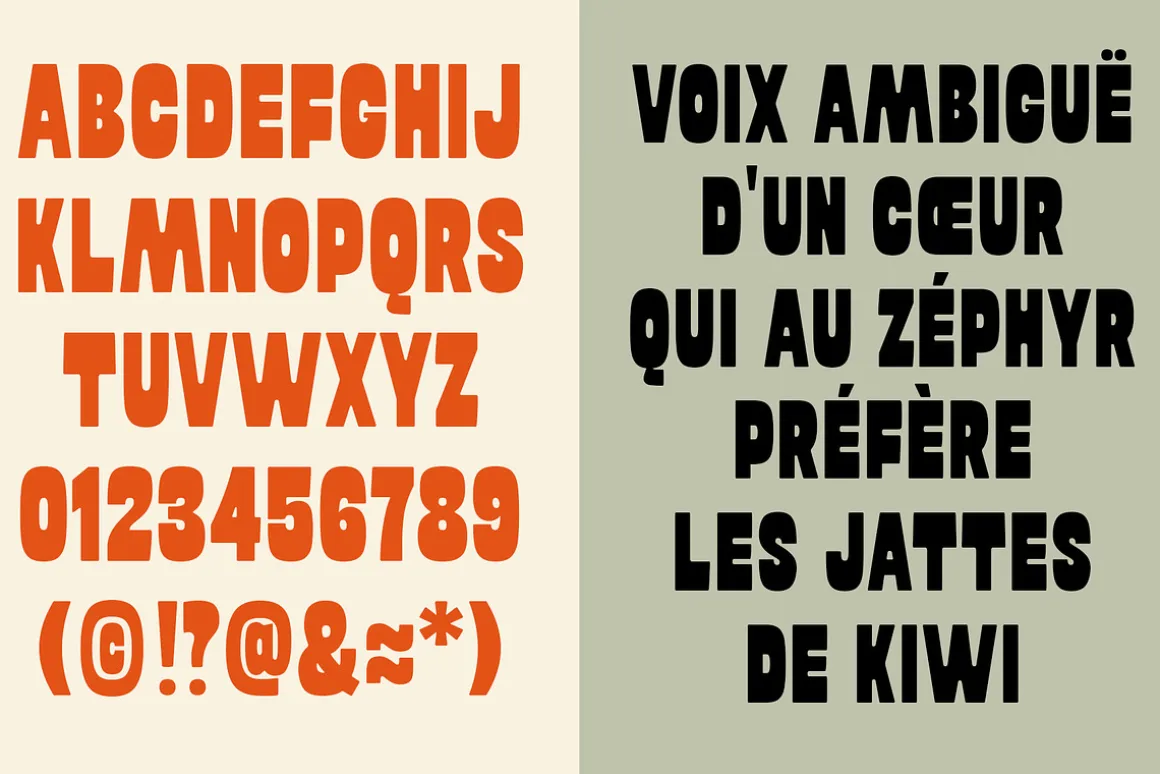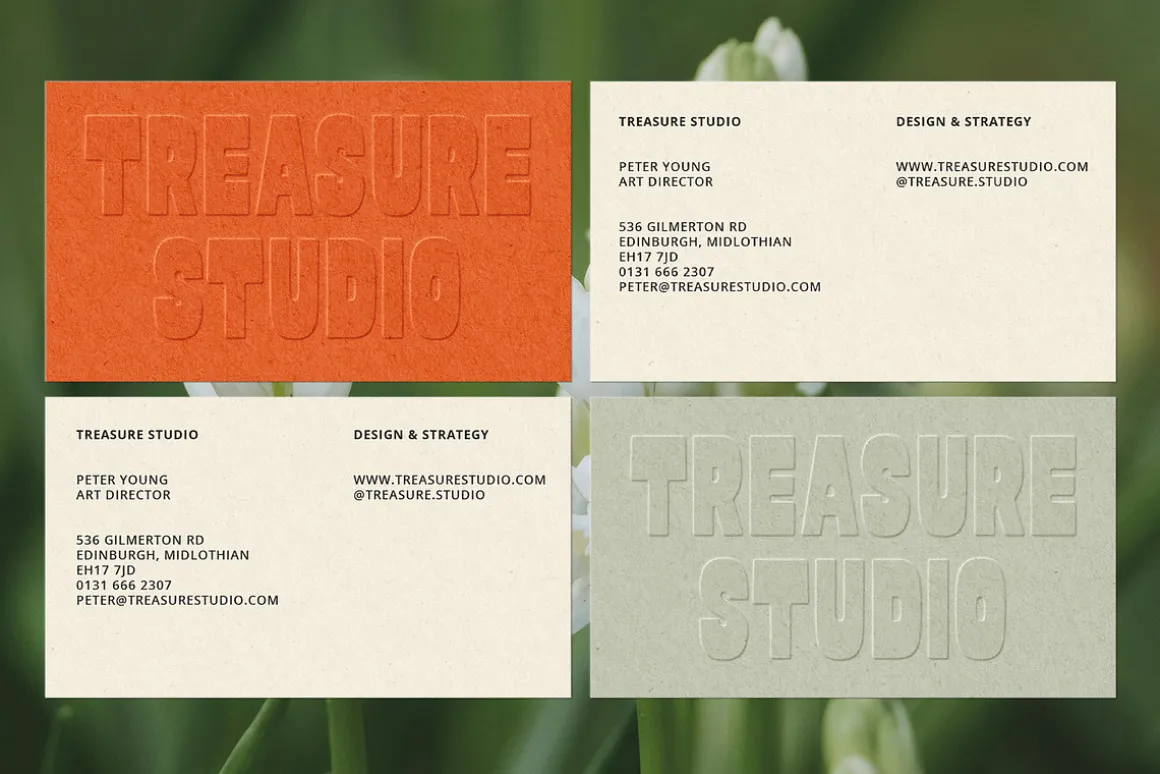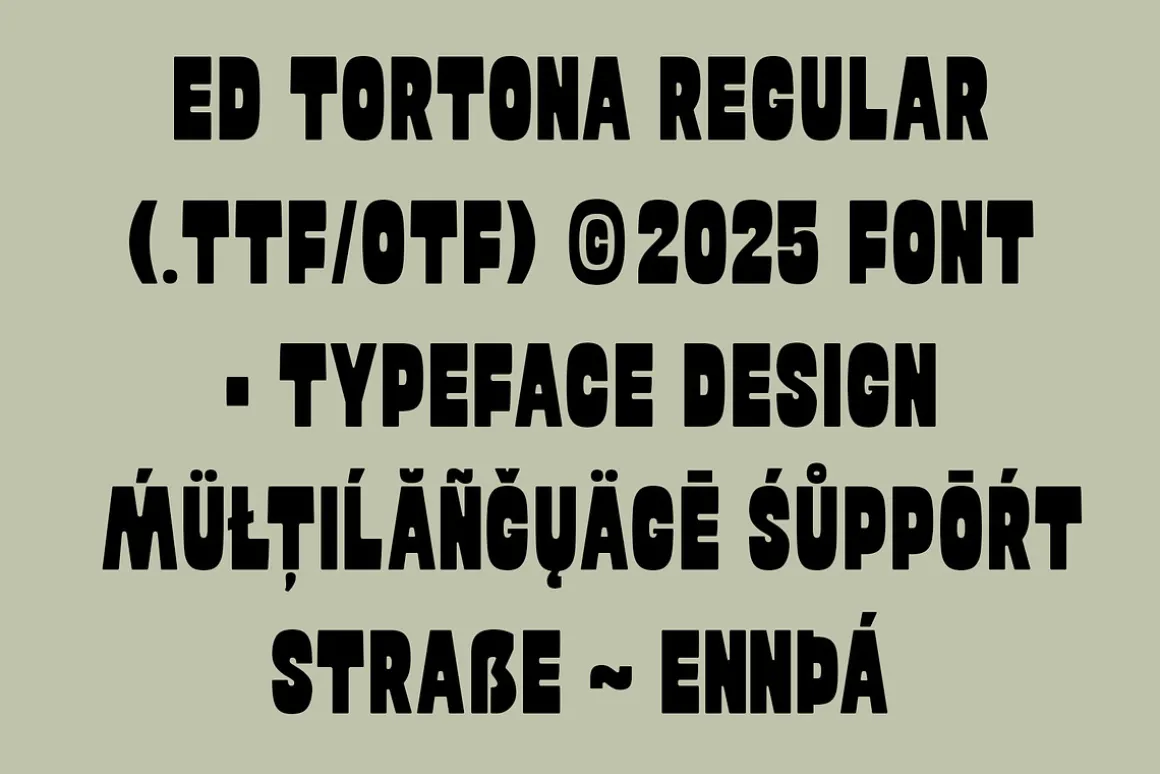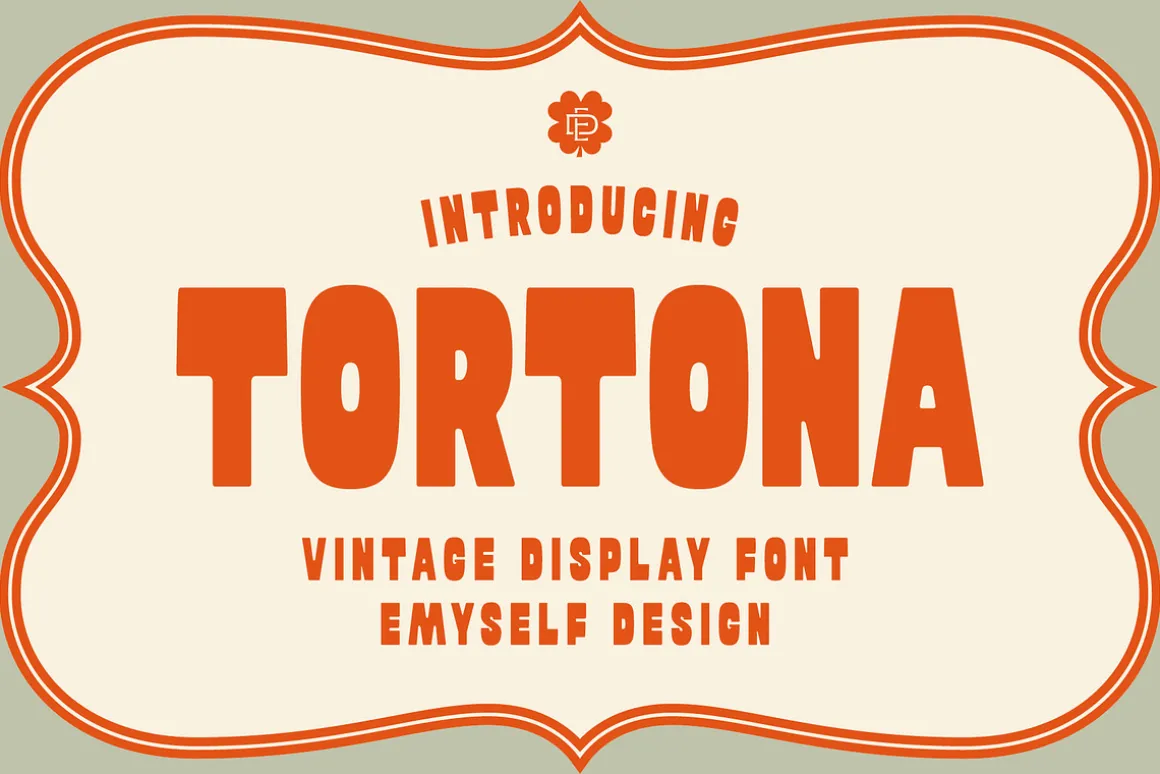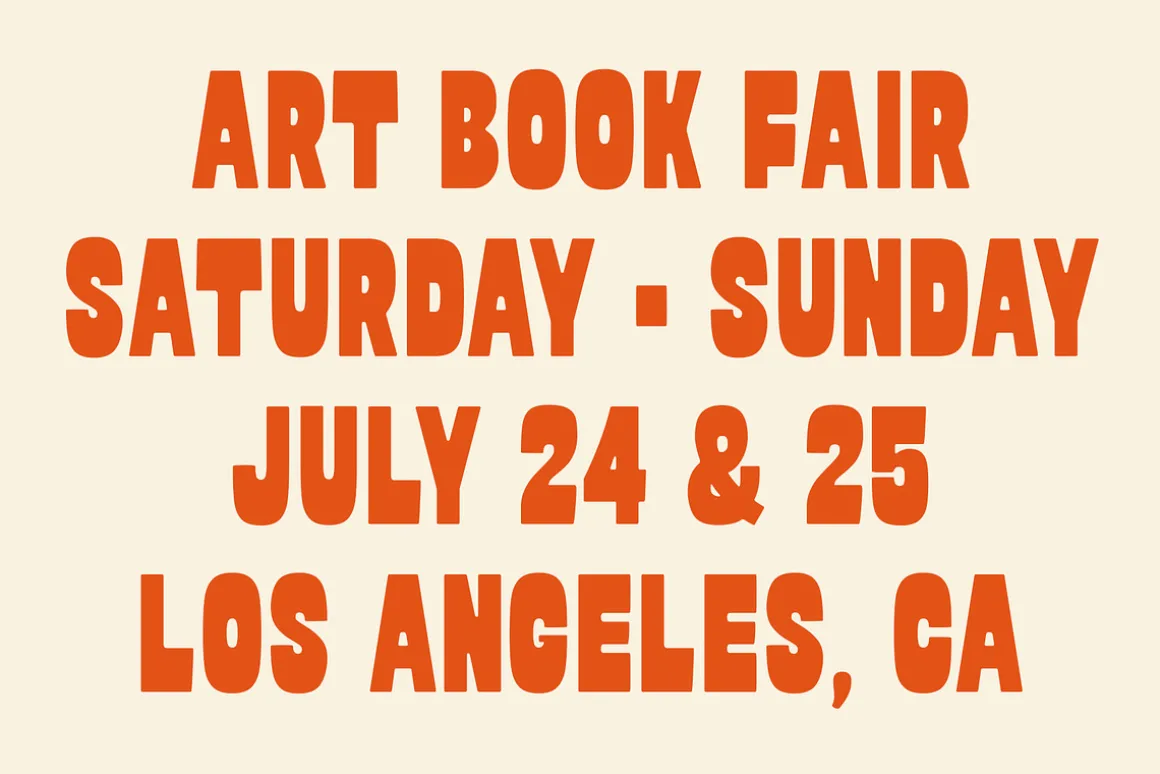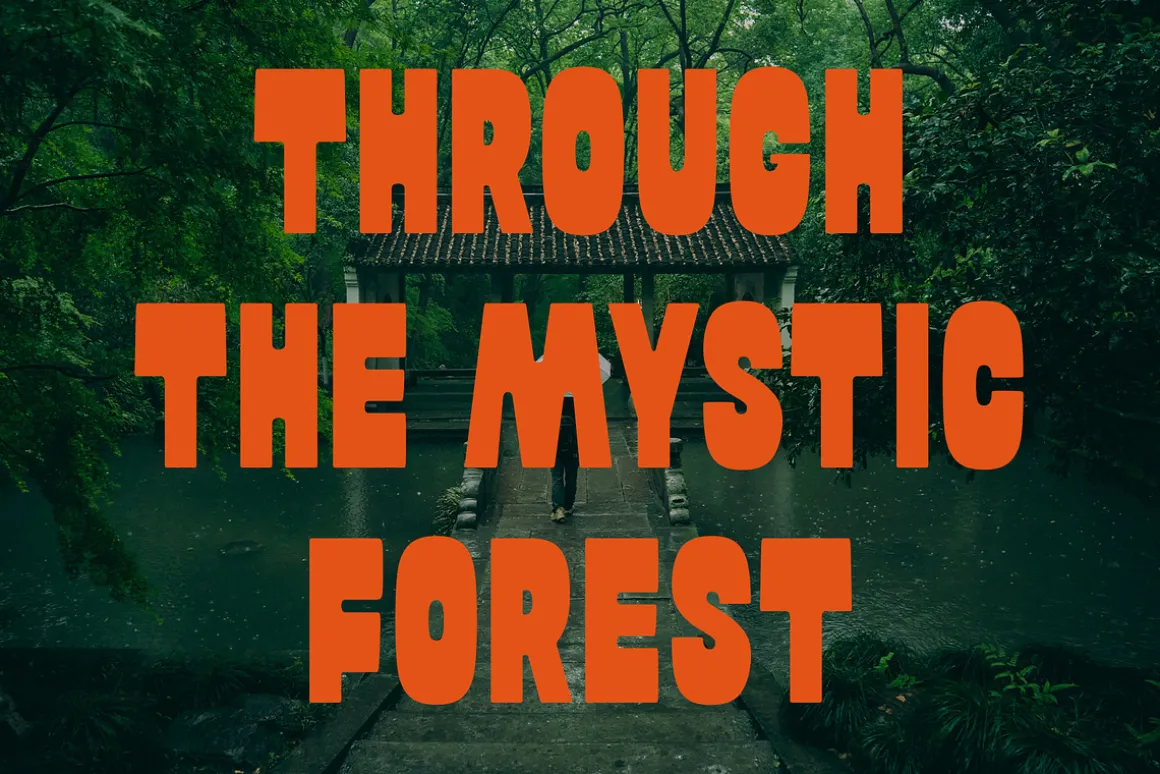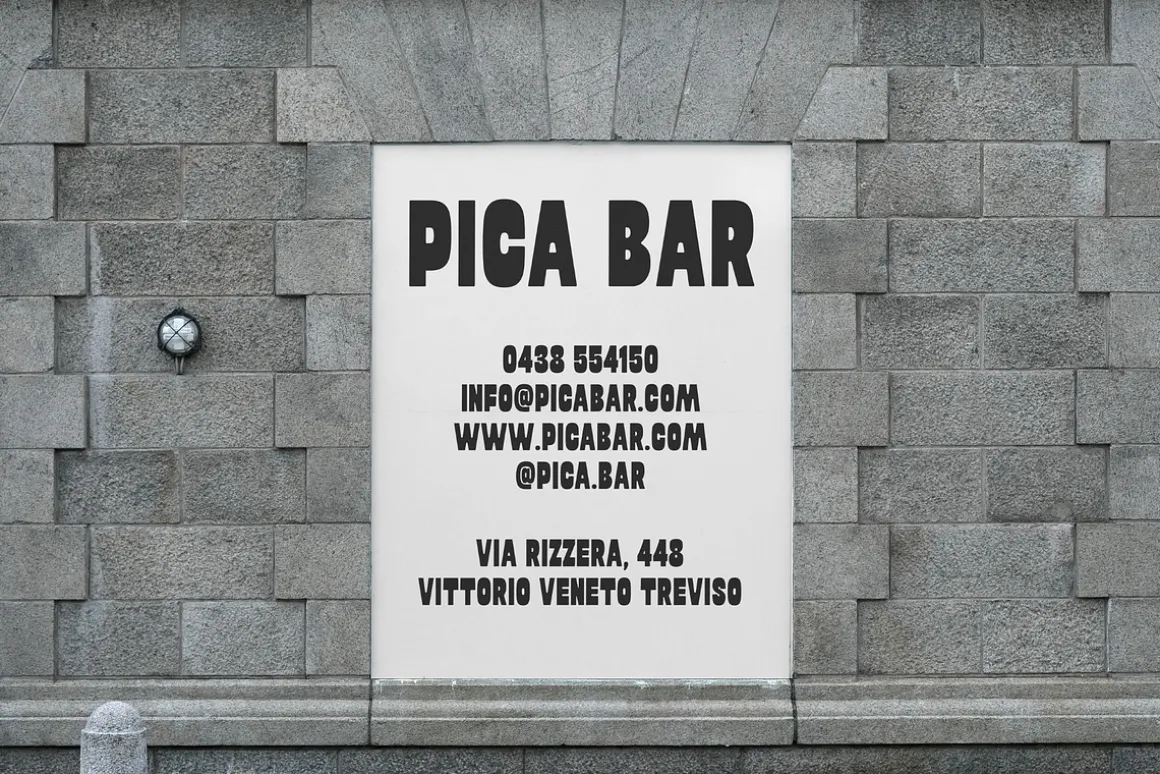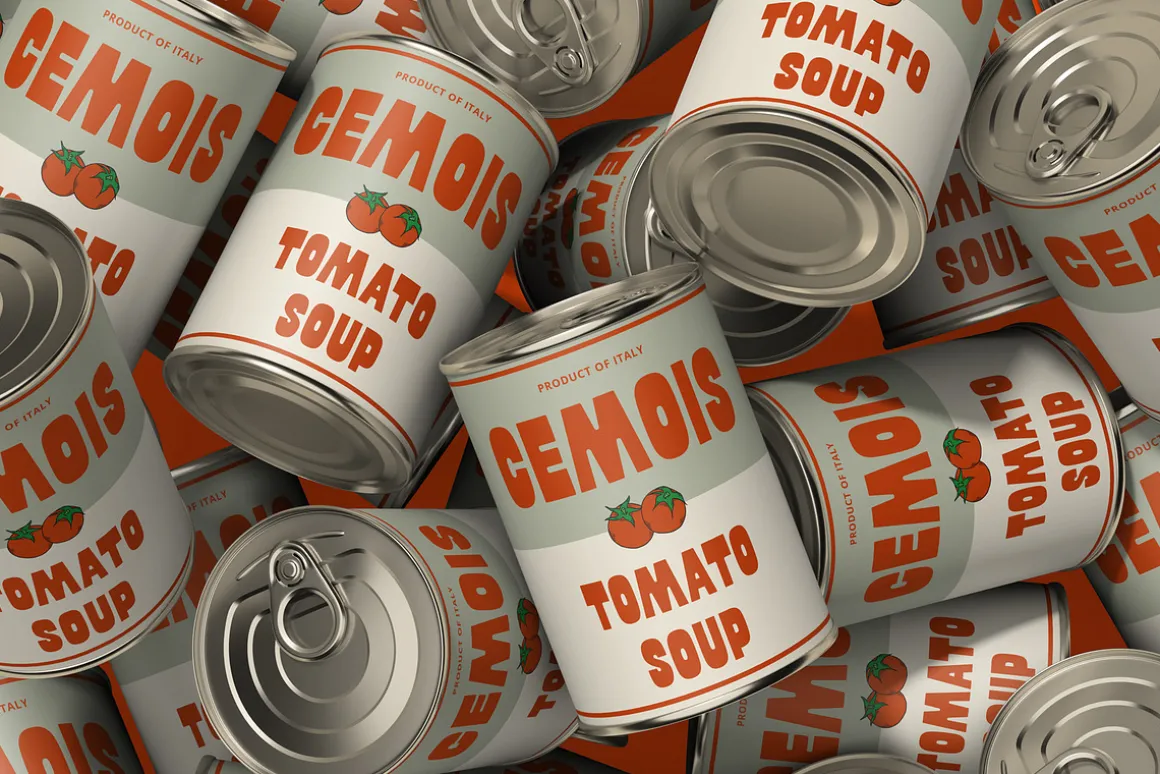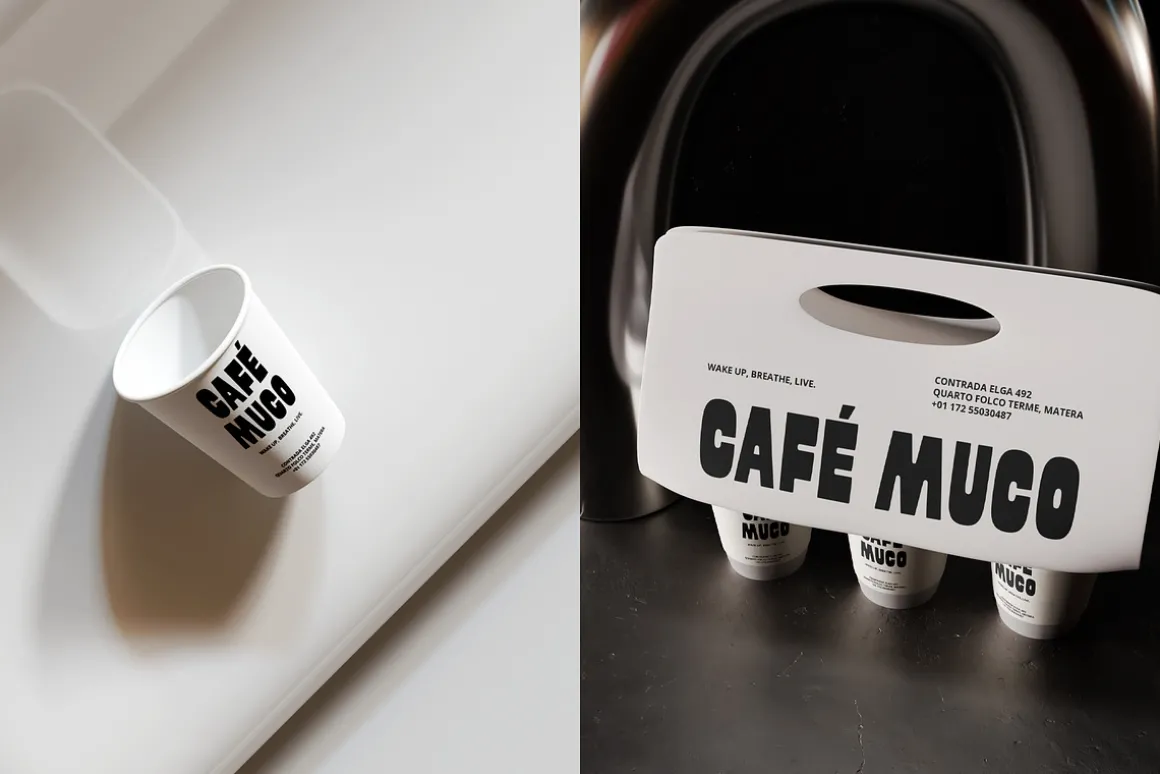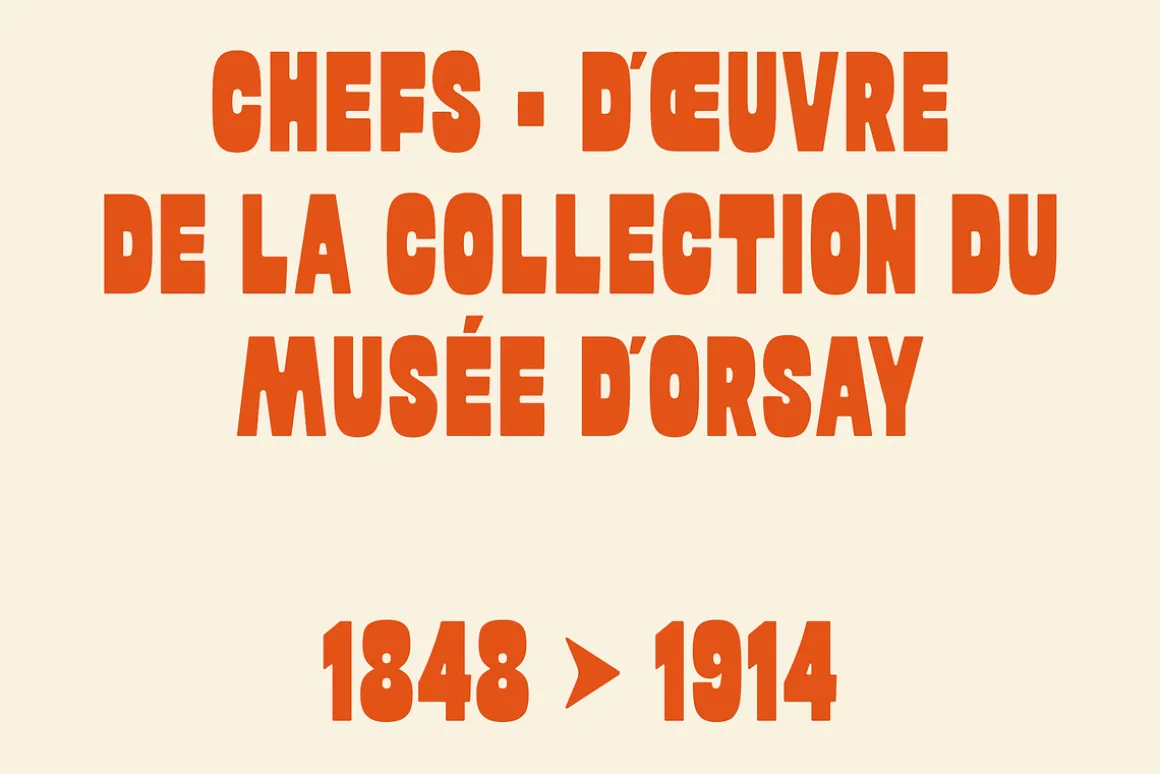
Tortona is a vintage-style display font that combines classic characters with a modern touch. With thick lines and soft edges, Tortona exudes a strong yet elegant impression. Suitable for titles, posters, packaging, and design projects that want to highlight a classy retro feel.
- Uppercase
- Punctuation and Marks
- Symbols